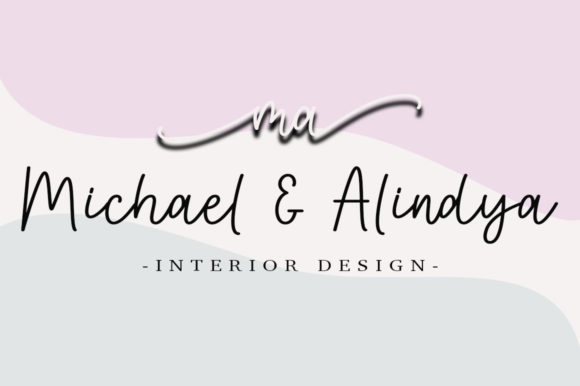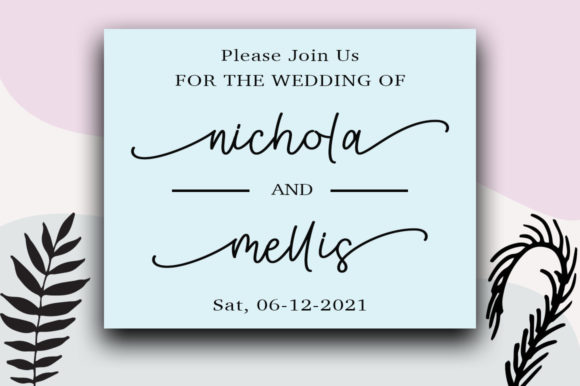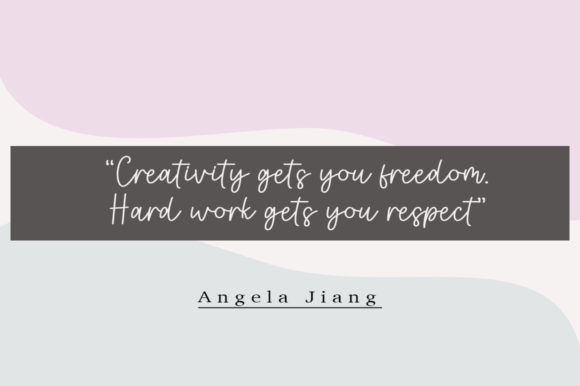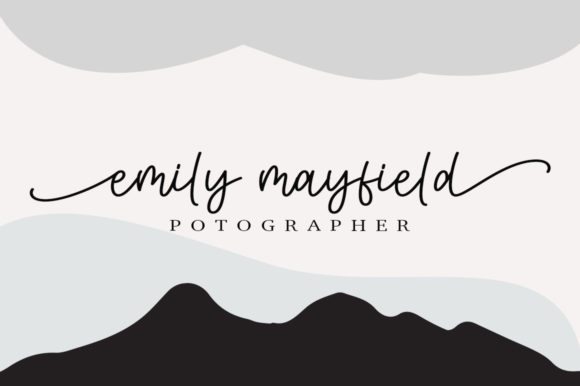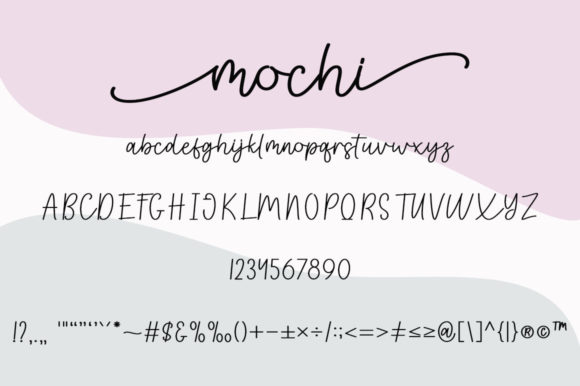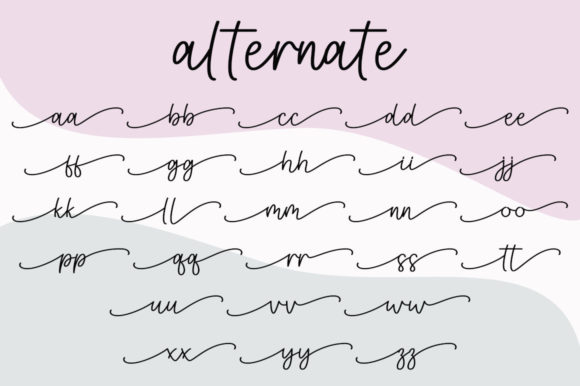
Introduction to Mochi Font
As designers, we’ve all been there – staring at a blank page, waiting for inspiration to strike. And then, it happens. A spark of creativity ignites, and we’re off and running on a new project. But sometimes, it’s the smallest details that can make all the difference. That’s where the Mochi Font comes in – a lovely script font that adds a touch of whimsy and charm to any design.
With its playful characters that seem to dance along the baseline, the Mochi Font is the perfect addition to any creative project. Whether you’re designing a logo, a brochure, or a social media campaign, this font is sure to make your work stand out. And the best part? It’s high-quality and free to download, making it a valuable resource for designers of all levels.
From its transparent background to its wide range of glyphs and ligatures, the Mochi Font is a game-changer for designers looking to elevate their designs. So why settle for a plain font when you can add a little magic to your work with the Mochi Font?
Key Features of Mochi Font
- Unique, playful design with a transparent background
- Perfect for designers looking for a fun and modern design resource
Honest Review: Mochi Font
I recently had the chance to work with the Mochi Font, and I must say it’s been a delightful experience. As a designer, I’m always on the lookout for high-quality design resources that can elevate my creative projects. The Mochi Font definitely delivers.
- ✨ Elegant and whimsical design: The Mochi Font features a unique, hand-drawn style that’s perfect for adding a touch of personality to any design.
- ✨ Wide range of characters: The font includes a comprehensive set of characters, including uppercase and lowercase letters, numbers, and punctuation marks.
One minor limitation I’ve noticed is that the font doesn’t work well with transparent backgrounds. When used on a transparent background, the text can become a bit fuzzy and difficult to read.
Overall, I’m thoroughly impressed with the Mochi Font. Its unique design and comprehensive character set make it an excellent addition to any design resource library. With its free download option, it’s a must-have for designers working on creative projects.
For the best results, pair Mochi Font with a simple background to let the font take center stage. Experiment with different font sizes and colors to find the perfect balance for your design.
Mochi Font is perfect for designing social media graphics, blog posts, and marketing materials. Its unique design will help you stand out from the crowd and make your creative project truly memorable.